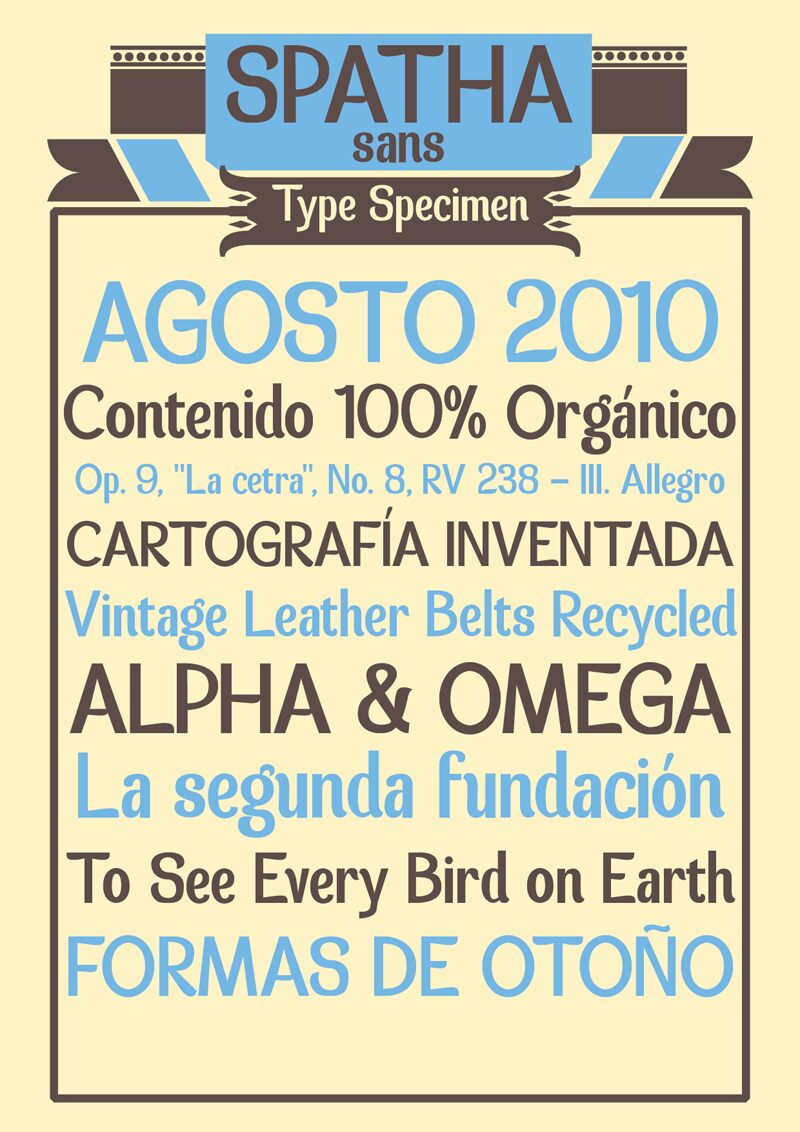
Spatha Sans by Fernando Carvente is a free decorative display font with towering proportions and sharply changing stroke widths. Its broad curves press against hairline joins, giving the letters a cut-paper crispness rather than the polish of a conventional fashion face. The silhouette is lean and dramatic.
Contemporary fashion and art publishing are its clearest territory, especially on magazine covers, exhibition posters, and lookbooks that use cropped photography or angular illustration. It is strongest as fashion-led display lettering, since the thin joins and oversized curves make each title resemble a graphic silhouette.